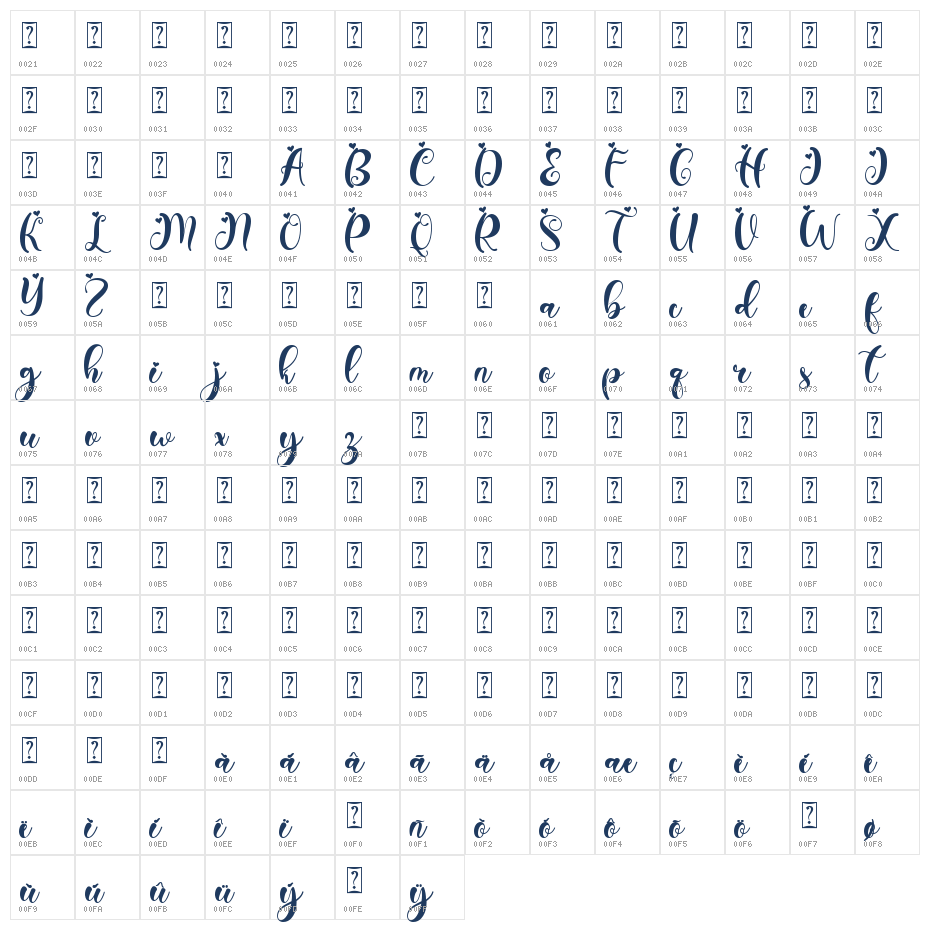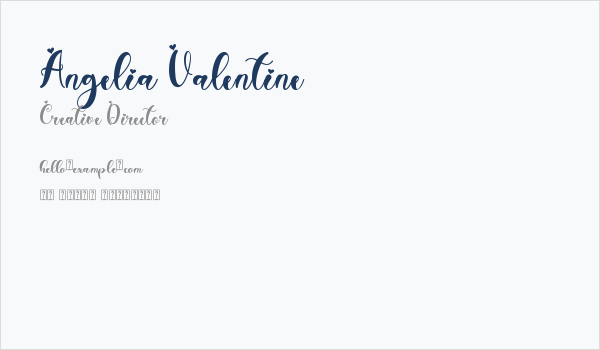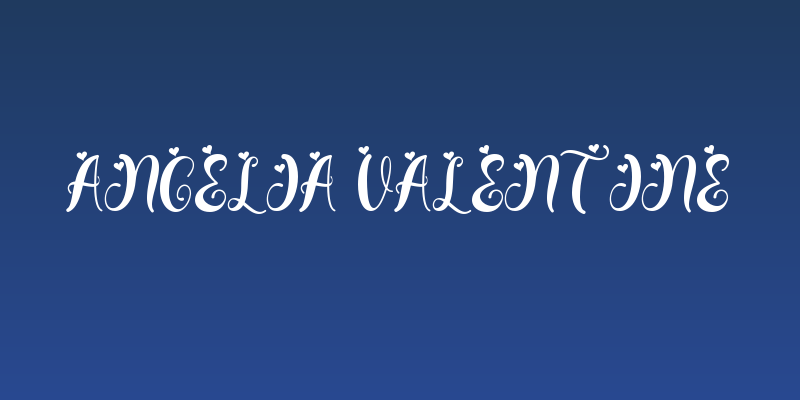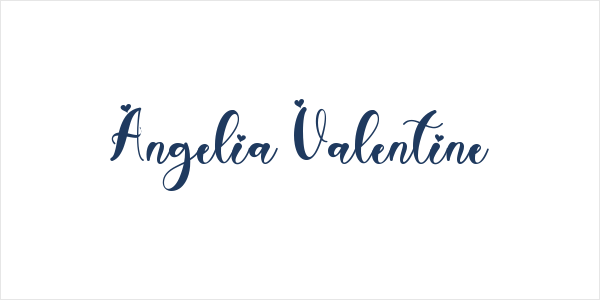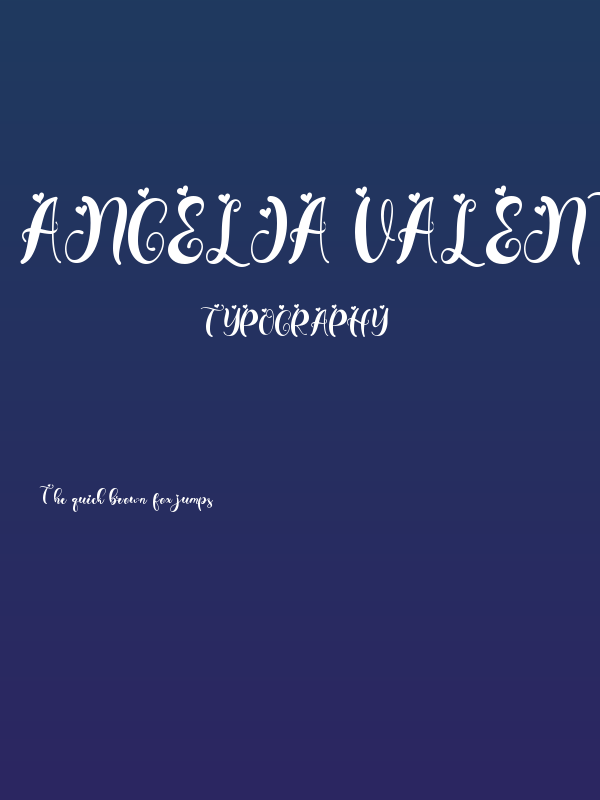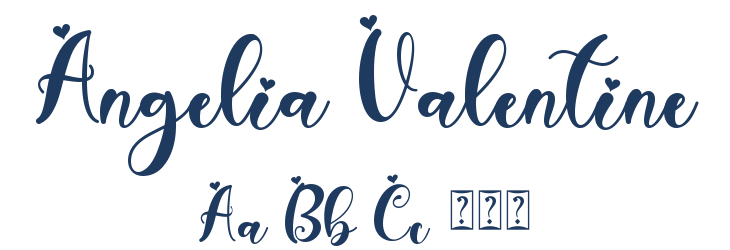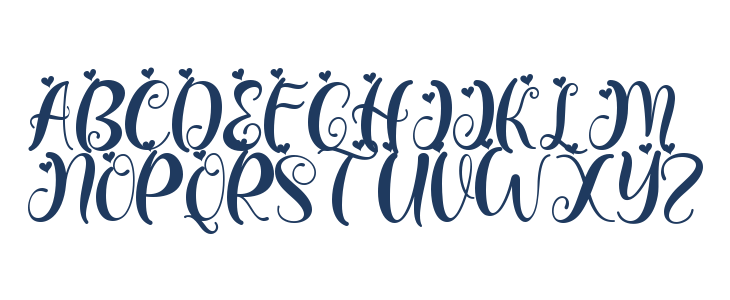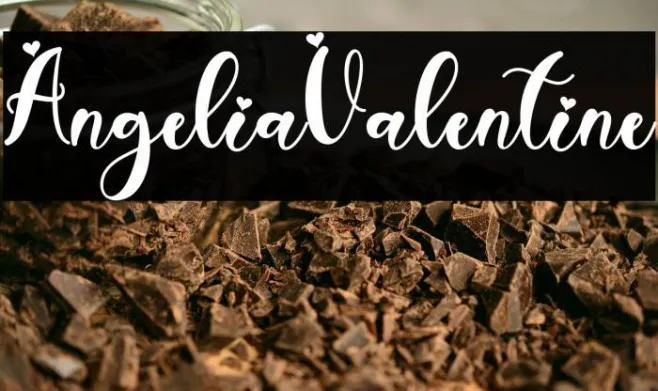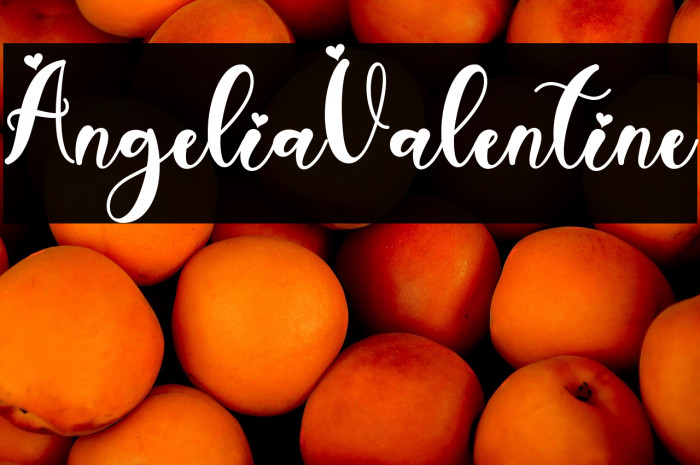
Angelia Valentine Font
Angelia Valentine Description
A decorative, script-style font with playful, handwritten characteristics and heart-shaped accents on certain characters.
| Overall Style | Playful, Elegant, Romantic |
| Use Case | Headlines, Invitations, Logos, Decorative Text |